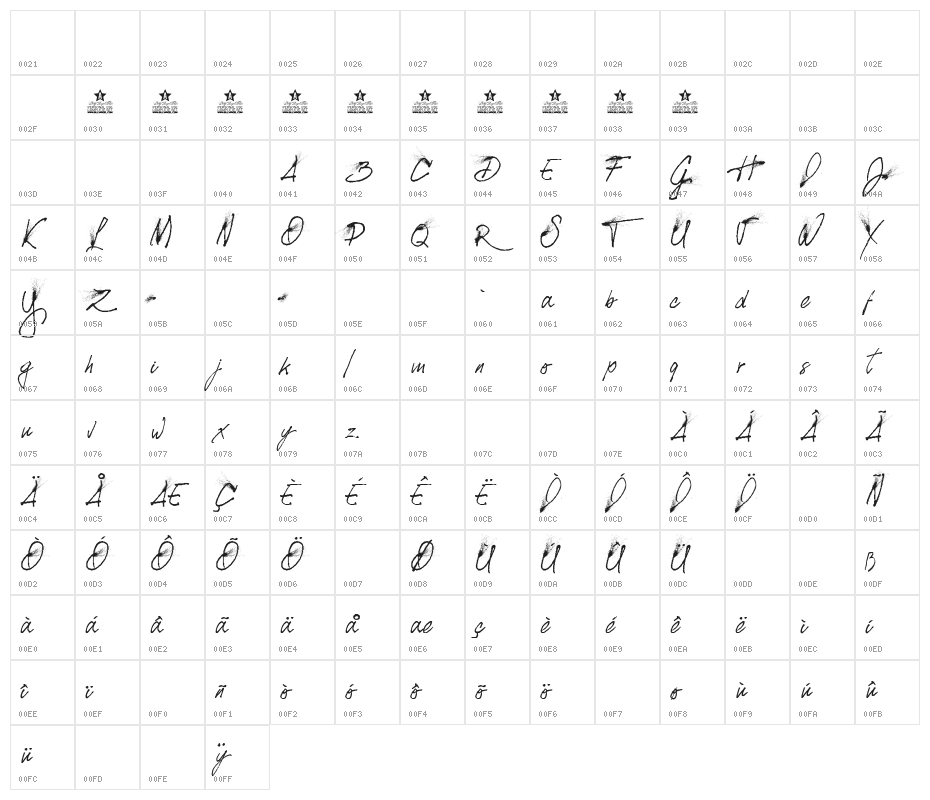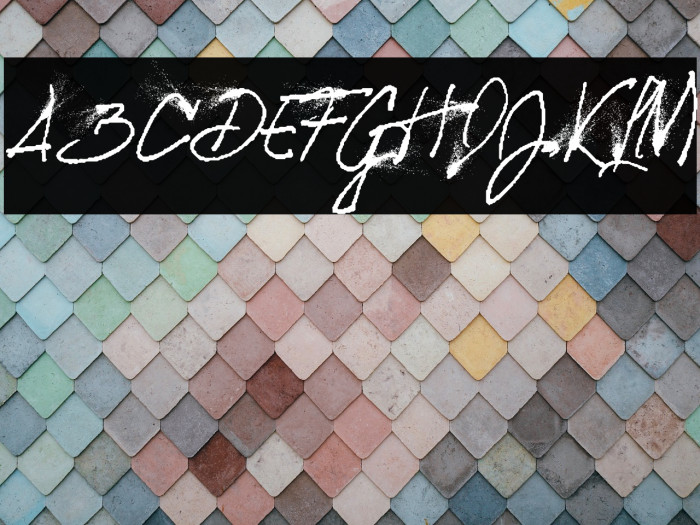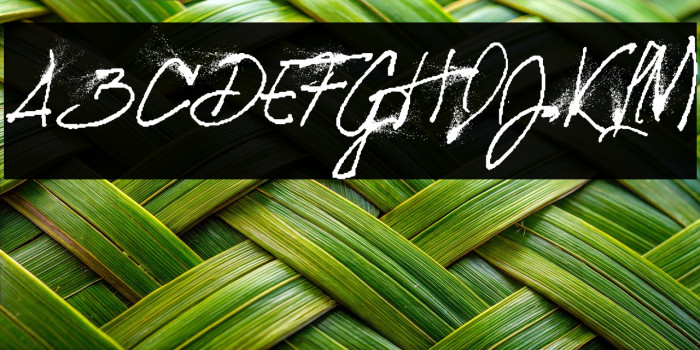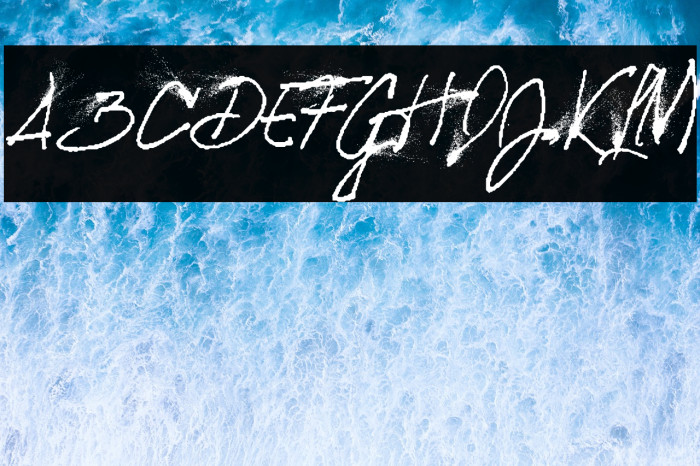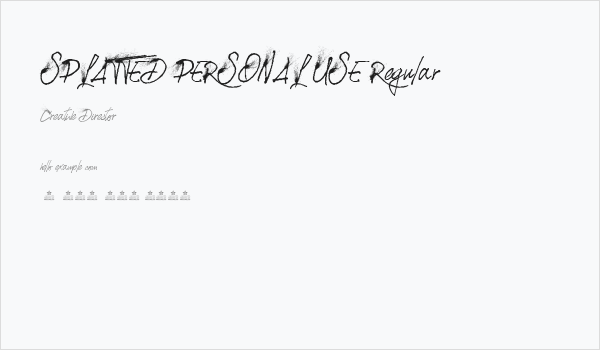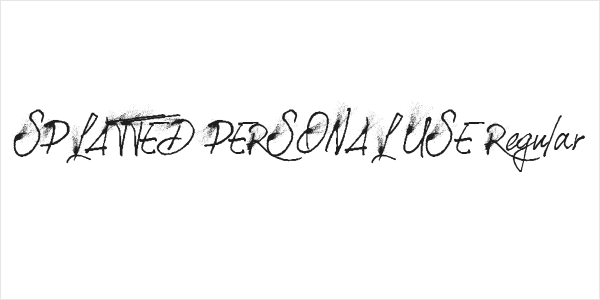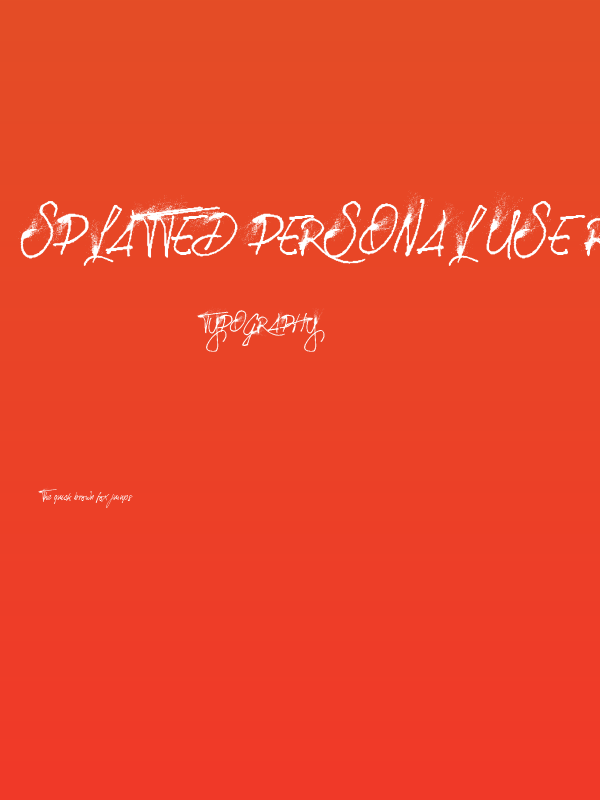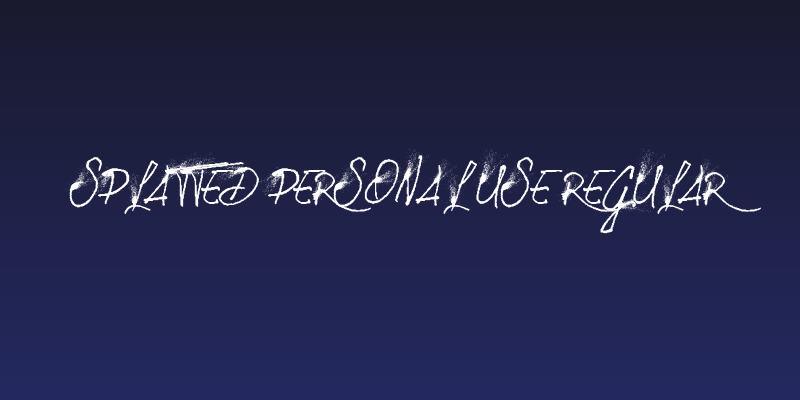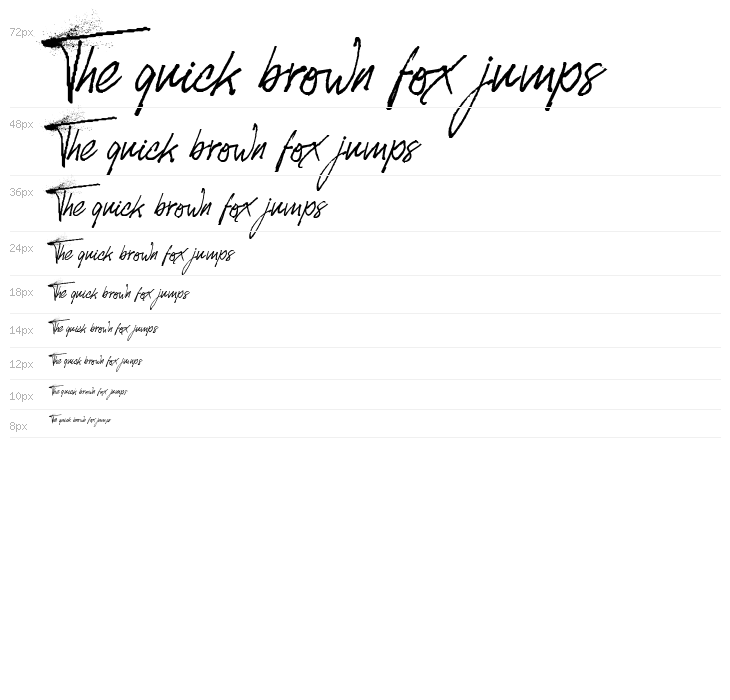
SPLATTED PERSONAL USE Regular Font
SPLATTED PERSONAL USE Regular Description
This font features a dynamic and expressive handwritten style, characterized by its fluid and irregular strokes that mimic the natural flow of handwriting. The letters are slightly slanted, adding a sense of movement and energy. The uppercase and lowercase characters are distinct, with uppercase letters being more pronounced and bold, while the lowercase letters maintain a consistent flow. The numbers and special characters are crafted to match the overall aesthetic, ensuring a cohesive look. The texture of the font gives it a raw, artistic feel, making it suitable for creative and informal projects.